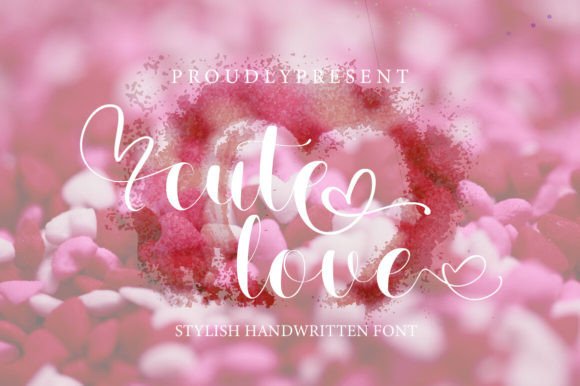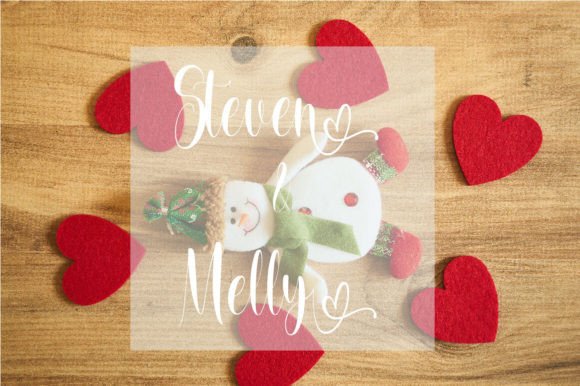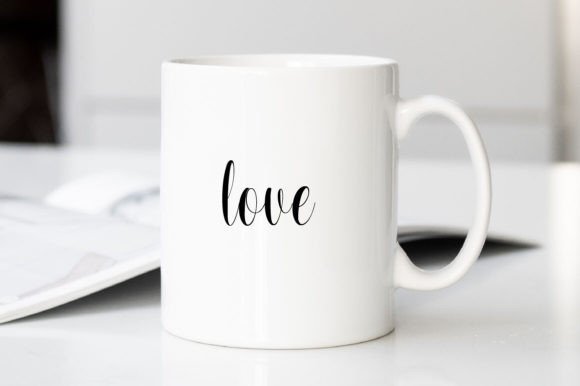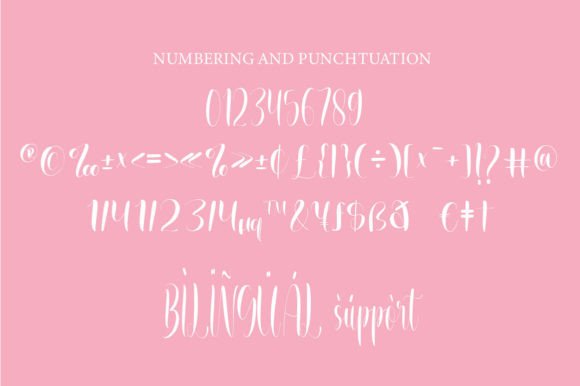
Cute Love Font
About the Cute Love Font
Elevate your designs with Cute Love Font, a font that combines sophistication with readability. Cute Love is a lovely handwritten font exuding charm and warmth. With its gentle curves and playful strokes, it captures the essence of affection and tenderness. Ideal for adding a touch of sweetness to invitations, greeting cards, and designs, Cute Love infuses projects with heartfelt elegance and sincerity.
Cute Love’s playful charm makes it perfect for projects requiring a touch of whimsy, such as wedding stationery, children’s books, or branding for sweet treat businesses. It excels in headlines, short quotes, and logos where its handwritten quality adds personality. However, its low x-height and decorative elements make it unsuitable for body text or UI elements demanding high readability.
Pairing Cute Love with a clean sans-serif like Lato or Open Sans provides a strong contrast, balancing its delicate nature with modern clarity. For a more vintage feel, consider pairing it with a serif like Playfair Display or Merriweather. Avoid pairing it with other script fonts, which could create visual clutter.
The overall personality is undeniably friendly and romantic, making it a great choice for brands focused on love, happiness, or childhood memories. Its delicate strokes and gentle curves exude warmth and approachability.
Cute Love Font Usage Examples
Cute Love Font Example